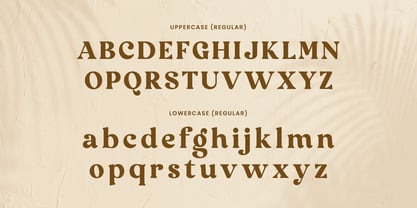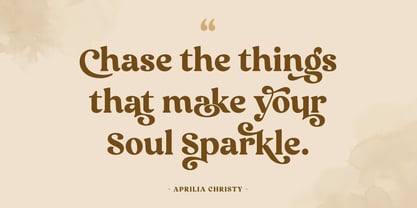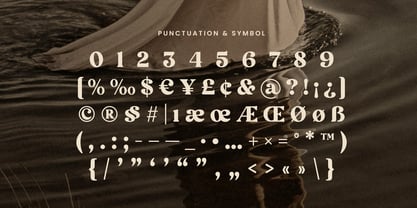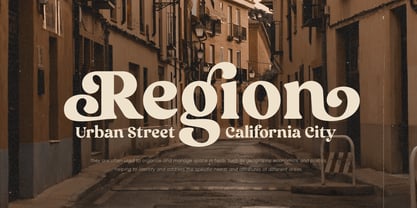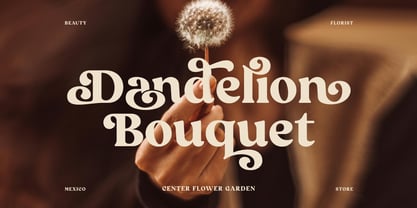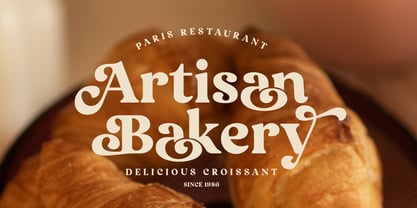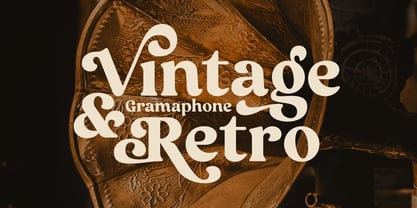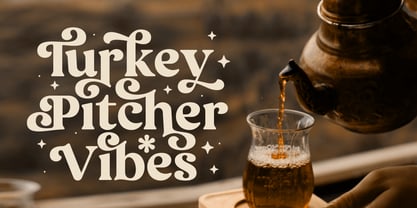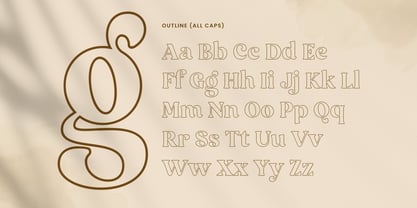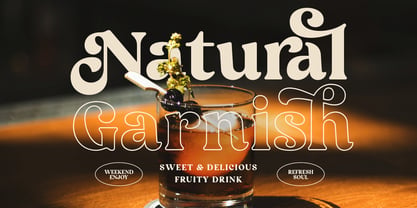
Rodman Making
von Sensatype Studio
Die Schriftfamilie Rodman Making wurde von Zamroni Hamzah entworfen und von Sensatype Studio veröffentlicht. Rodman Making enthält 2 Stile und Familienpaketoptionen. Mehr über diese Familie
Rodman Making - Vintage Retro Font
Rodman Making is a vintage retro font that brings a timeless charm to any design project. With its bold retro look, this font is perfect for creating authentic, nostalgic designs that evoke the spirit of the past. Whether you're designing for posters, branding, or logos, Rodman Making’s retro aesthetic adds a unique vintage touch to your work.
Inspired by old-school typography, Rodman Making captures the essence of classic design eras, making it ideal for anyone looking to infuse their projects with a sense of history and style. Its bold, confident letterforms are designed to make a statement, ensuring your design stands out with a unique retro flair.
Perfect for logos, packaging, and creative display projects, Rodman Making offers versatility while maintaining its vintage appeal. This font will transform your designs into works of art that capture attention and leave a lasting impression.
Rodman Making Vintage Retro Font Features:
• Vintage Retro Characters Ready
• Ready with Regular & Outline Style
• Punctuation, Number, and Symbol
• Uppercase and Lowercase
• OpenType Features
Multilingual Characters available for:
Afrikaans, Albanian, Asu, Basque, Bemba, Bena, Breton, Chiga, Cornish, Dutch, English, Estonian, Filipino, Finnish, Friulian, Galician, German, Gusii, Indonesian, Irish, Italian, Kabuverdianu, Kalenjin, Kinyarwanda, Luo, Luxembourgish, Luyia, Machame, Makhuwa-Meetto, Makonde, Malagasy, Manx, Morisyen, North Ndebele, Nyankole, Oromo, Portuguese, Quechua, Romansh, Rombo, Rundi, Rwa, Samburu, Sango, Sangu, Scottish Gaelic, Sena, Shambala, Shona, Soga, Somali, Spanish, Swahili, Swedish, Swiss.